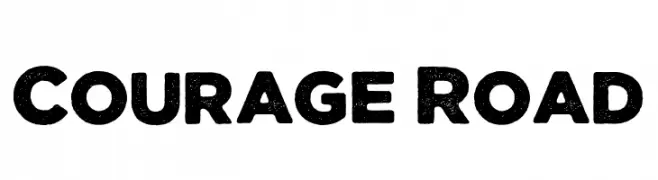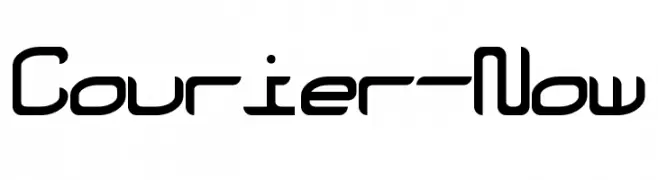
Cartoon couples form each character in a playful, hand-drawn style.
A bold, textured font with a distressed, vintage look.
A playful, hand-drawn font with a whimsical and friendly style.
A flowing, cursive script font with elegant, connected characters.
A monospaced font with a classic, typewriter-inspired design.
A clean, modern sans-serif monospaced font with low contrast and uniform spacing.
A modern, monospaced font with rounded edges and a futuristic design.
A monospaced font with a classic typewriter style, offering clarity and uniformity.
A clean, monospaced font perfect for coding and technical documentation.
A decorative script font with elegant swashes.